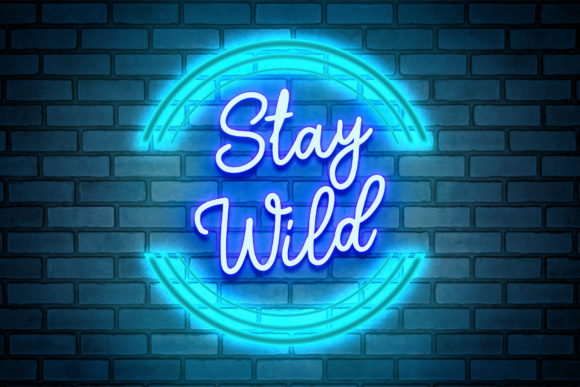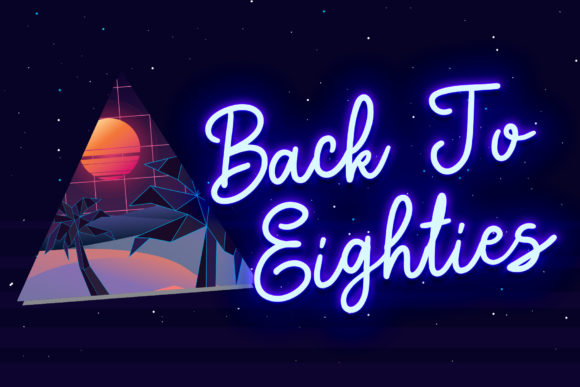
Shade Blue Font
db-ku.com - Script & Handwritten -- Shade Blue is a retro styled script font. It looks great on any project, social media post, advertising, business, poster and much more!